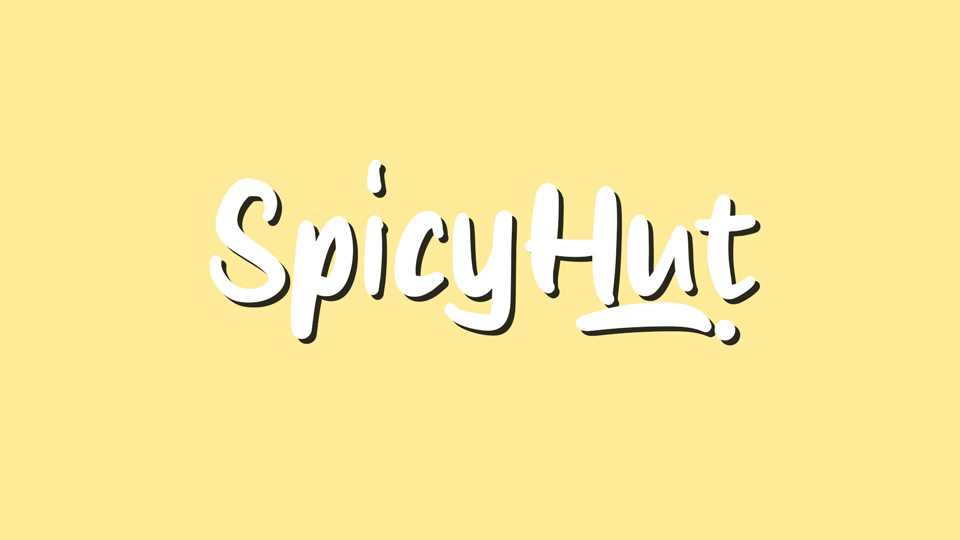
Download Spicy Hut font, a smooth and sweet handwritten typeface that will add an organic and natural touch to any projects. Handcrafted with care, Spicy Hut font is well suited to create everything from quotes to logos – all with an authentic feel.